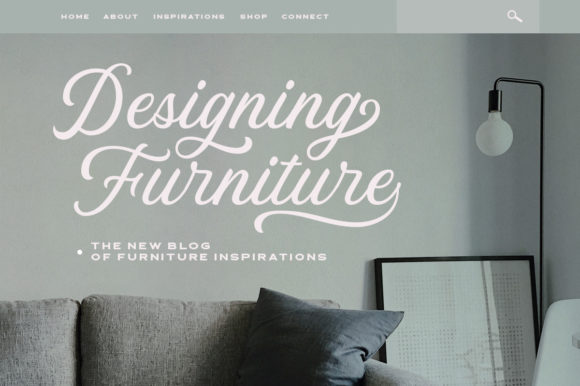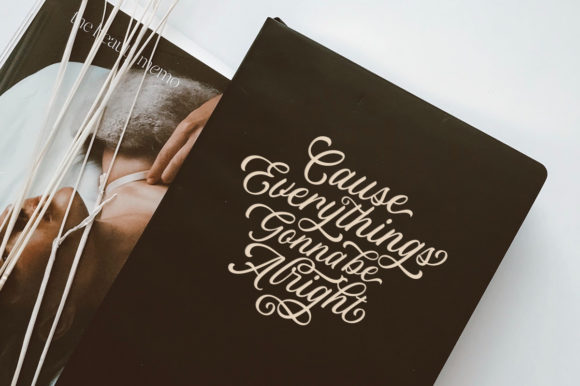
Linkgray Font
db-ku.com - Script & Handwritten -- Linkgray is a cute and casual handwritten font with an incredibly friendly feel. It features gorgeous swashes and ligatures that make this script incredibly versatile. Whether you’re looking for fonts for Instagram or calligraphy scripts for DIY projects, Linkgray will turn any creative idea into a true piece of art!